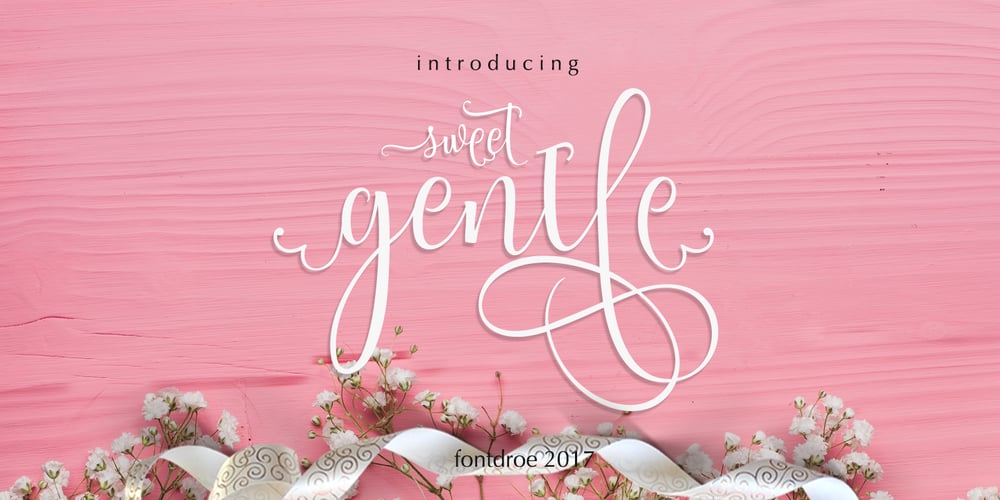
Sweetgentle
Sweetgentle font
Sweetgentle Font Family was designed by Mahdani and published by Fontdroe. Sweetgentle contains 1 styles and family package options. Sweetgentle is a new modern calligraphy typeface containing 750 glyphs. It has OpenType features and PUA encoded. Of course this is a smart font that works with popular design software like Photoshop, Coreldraw, Illustrator, Microsoft Office, ect. This Modern Calligraphy typeface welcomes you to use it for various purposes such as logos, cards, wedding invitations, headings, signatures, t-shirts, letterheads, cutting, hot stamping, signage, labels, posters and more. It’s craft friendly!!!! OPENTYPE TECHNOLOGY: – Stylistic alternate – Contextual alternates – Standard Ligatures – Discretionary Ligatures – Contextual Ligatures – Initial Letter – Medial Letter – Terminal Letter – Numerals – Punctuations